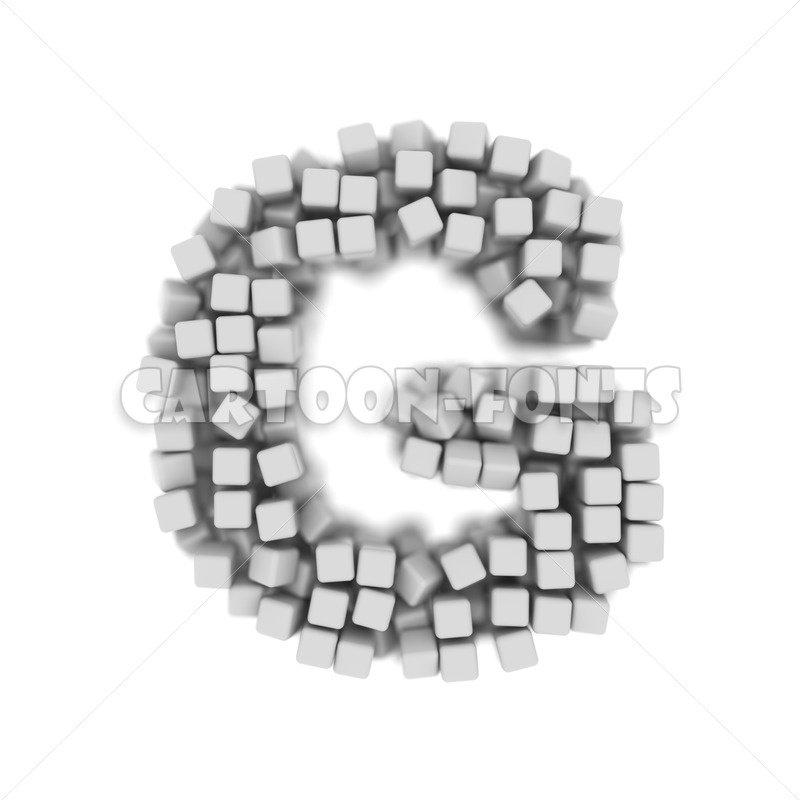
voxel letter G - Uppercase 3d character
voxel letter G
voxel letter G illustration against a white background.
This is the perfect image for creative projects linked to science, modernity or technology thematics.